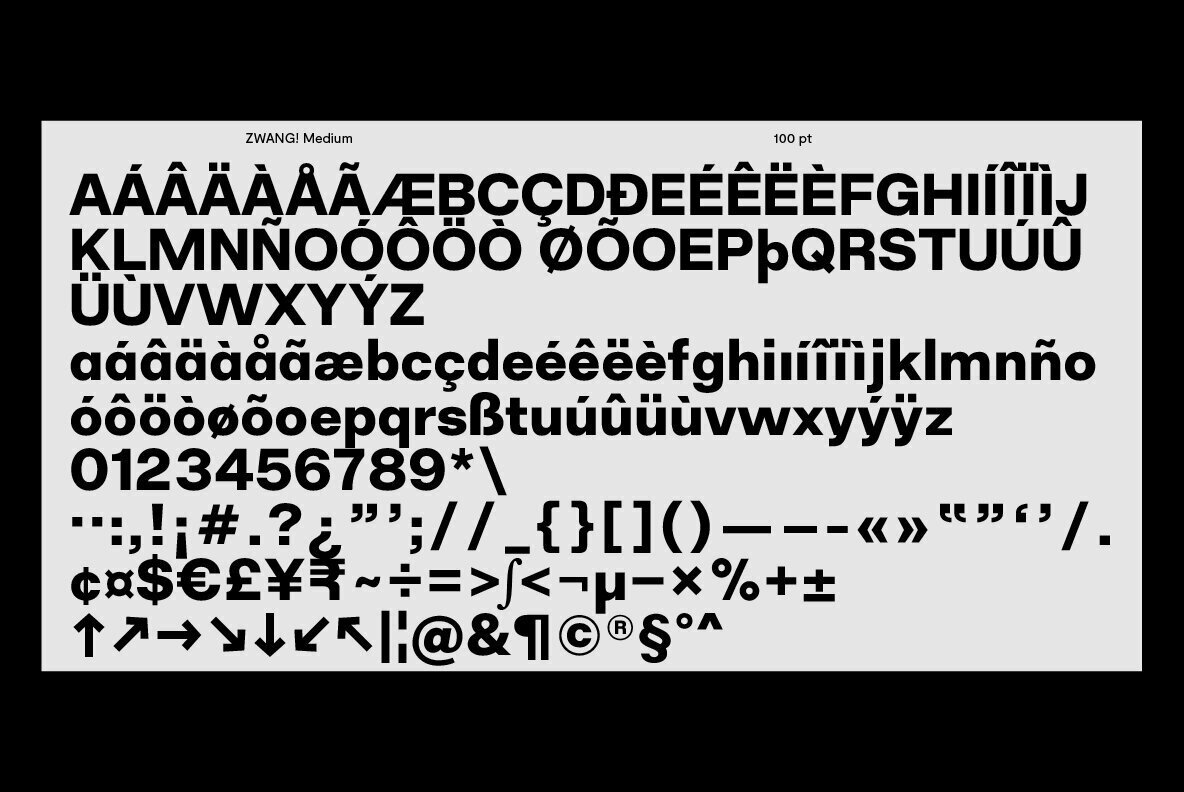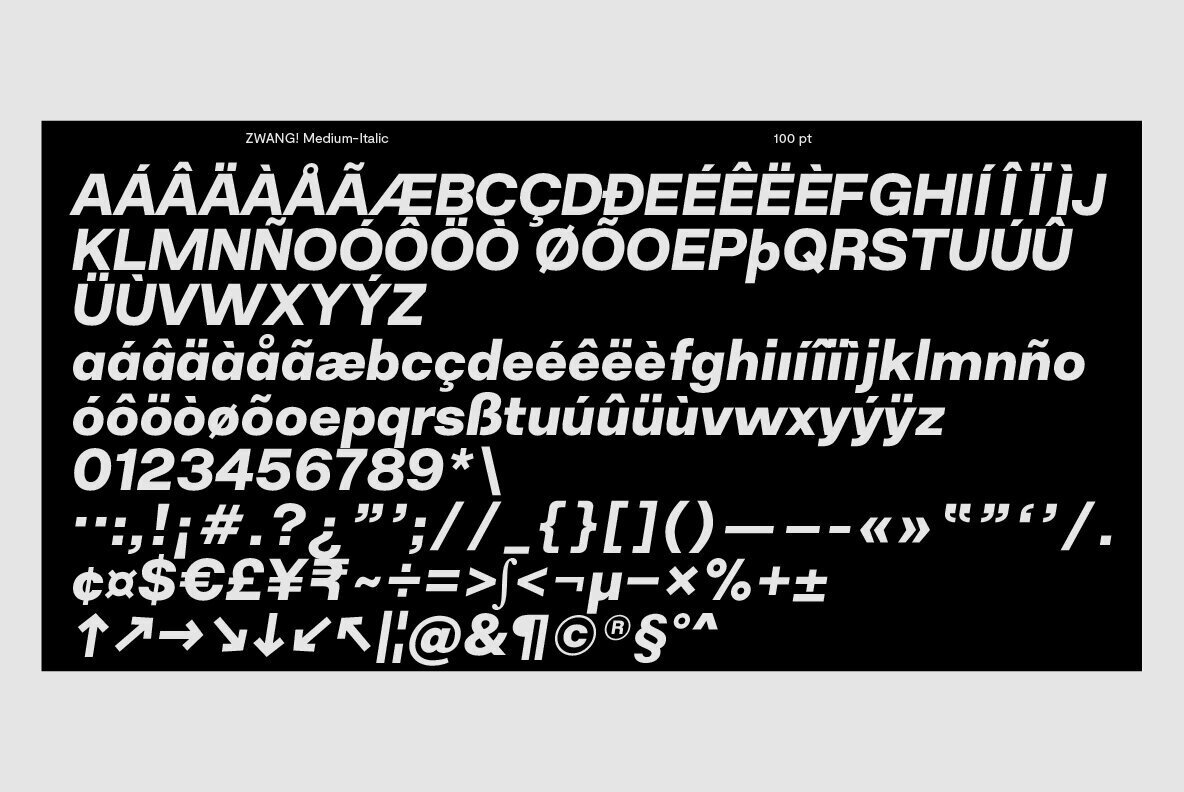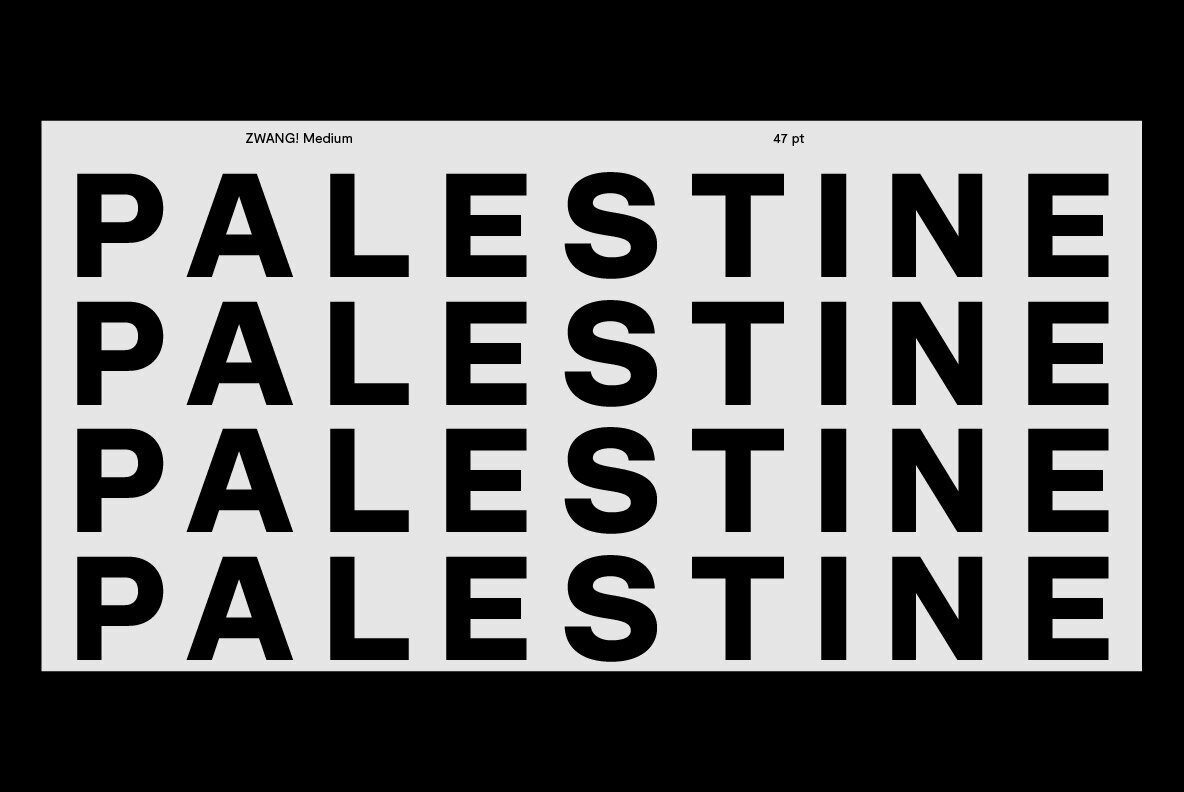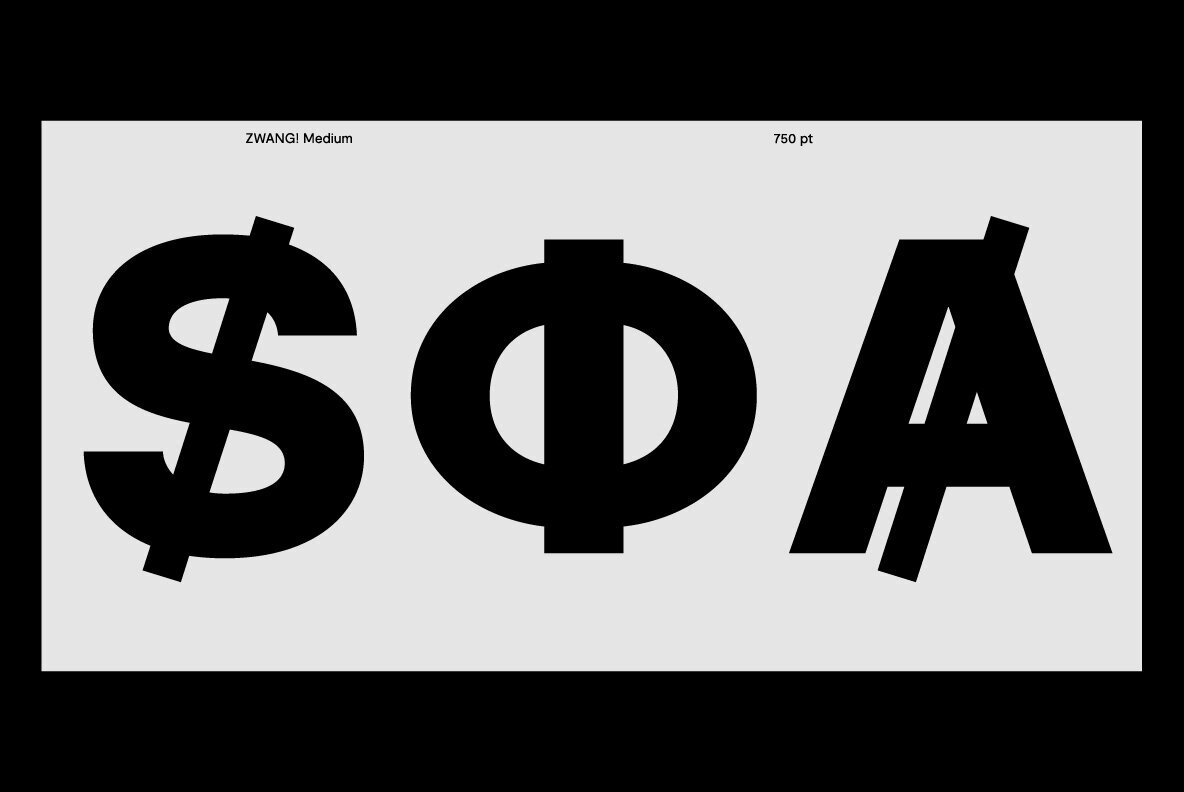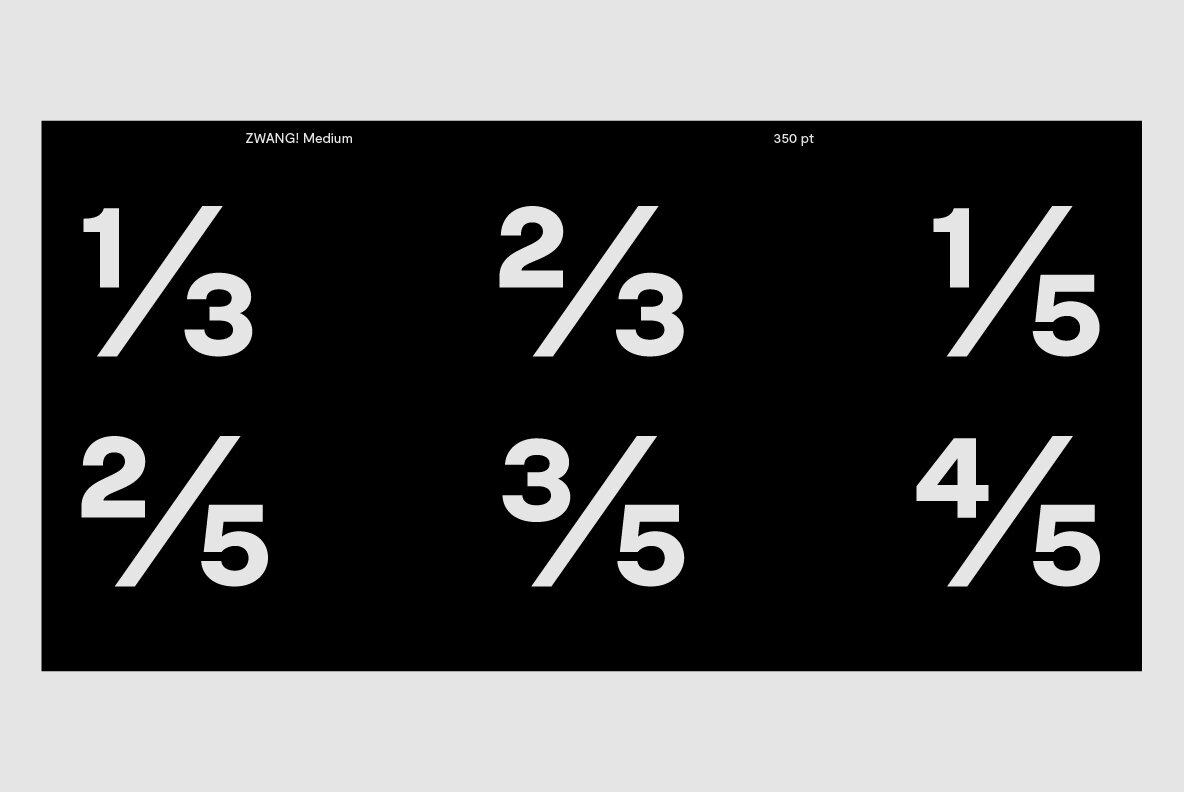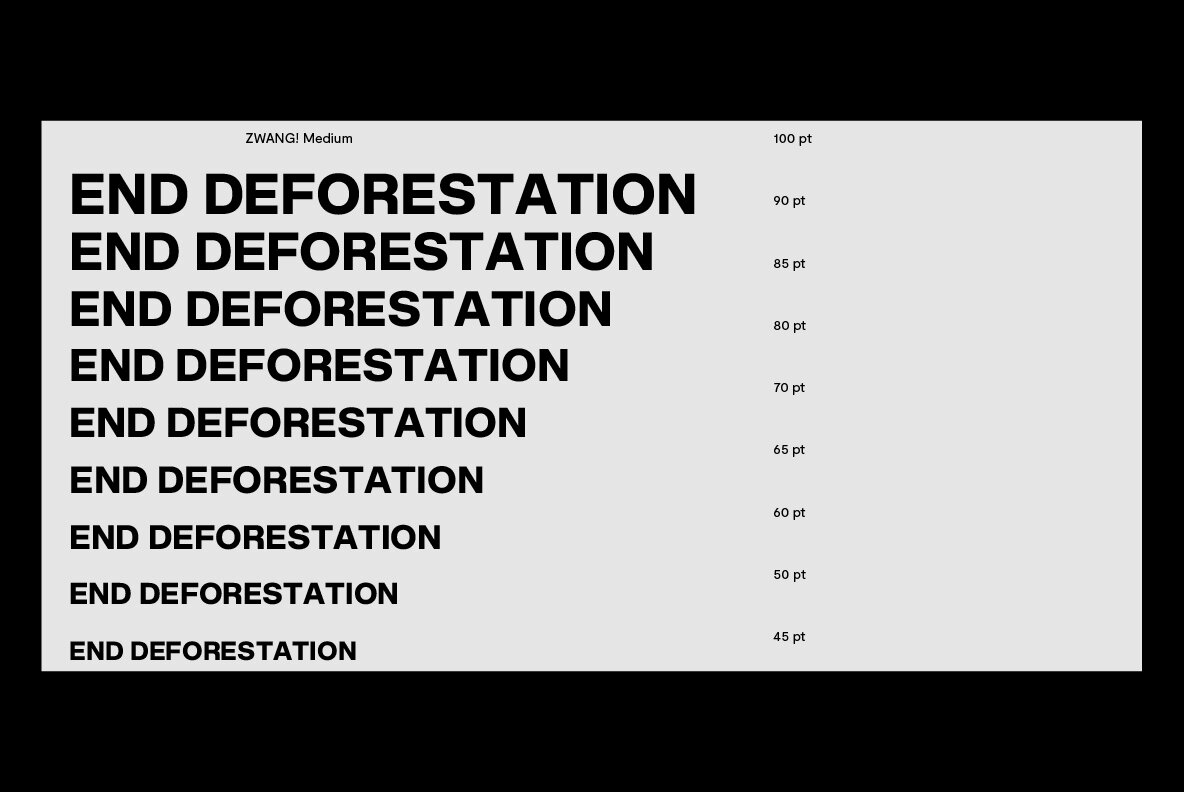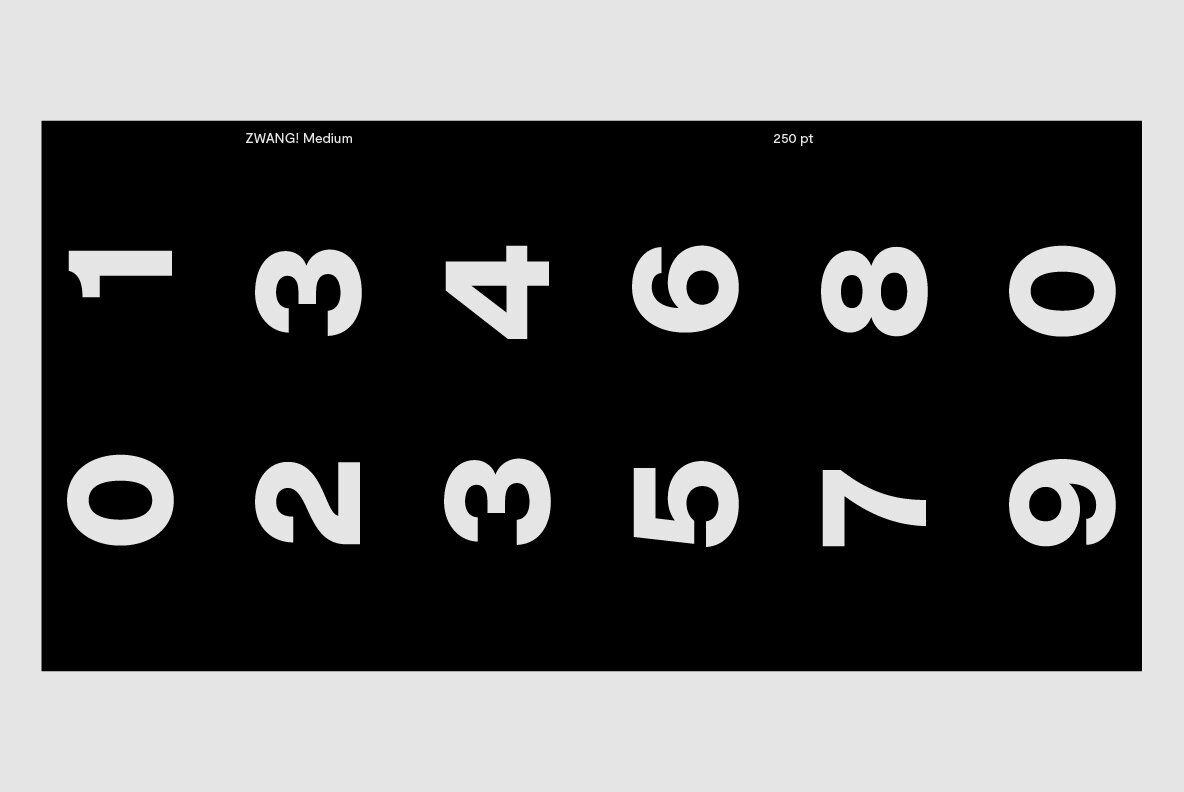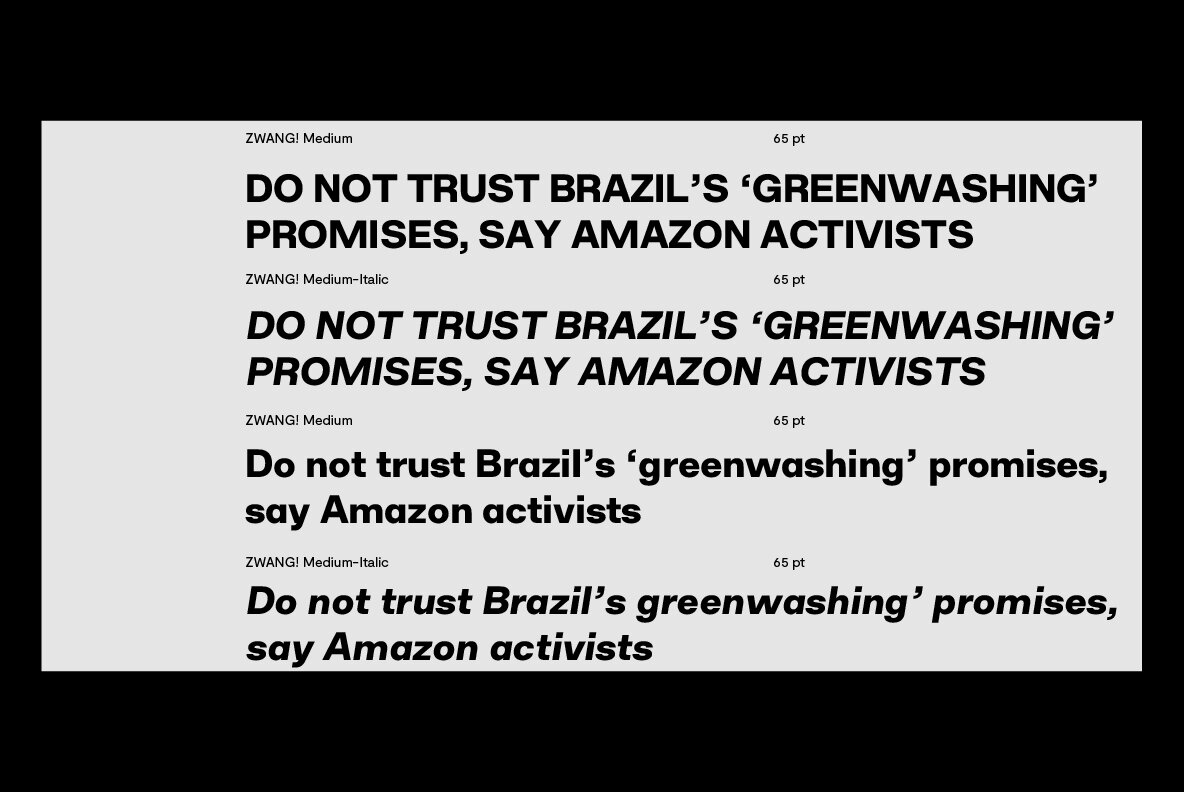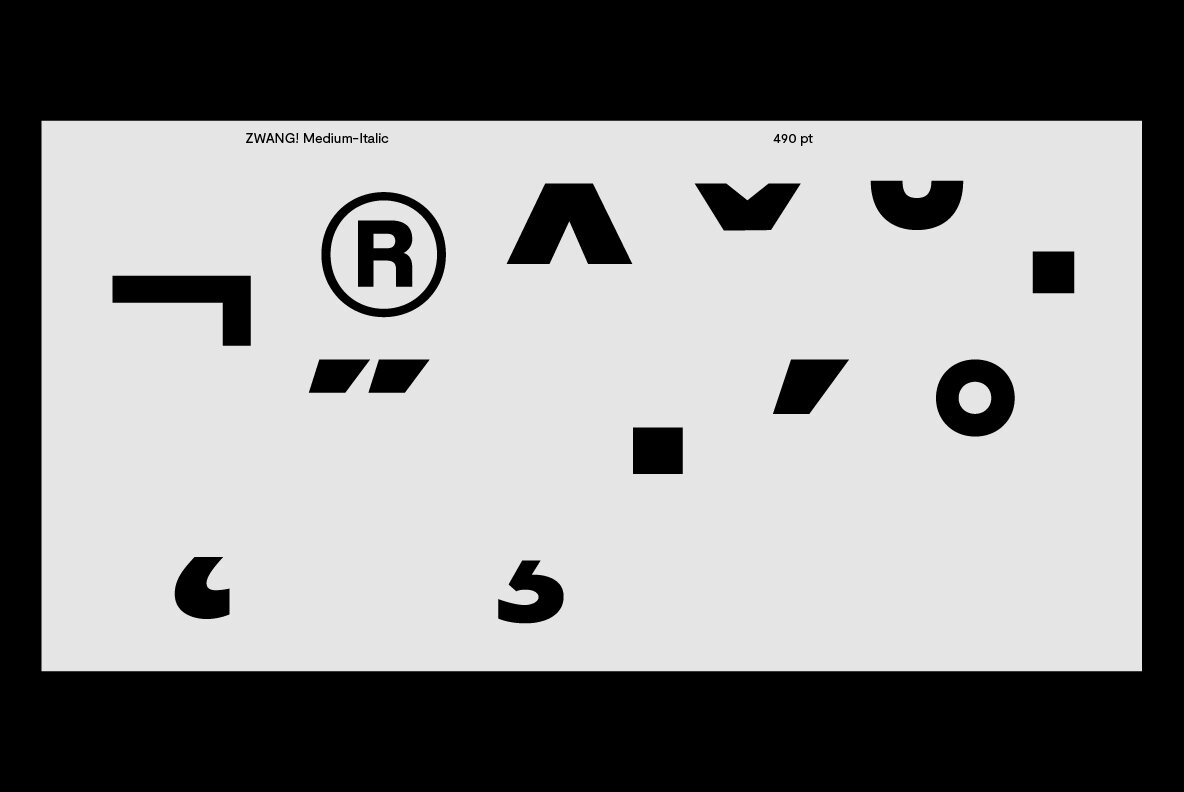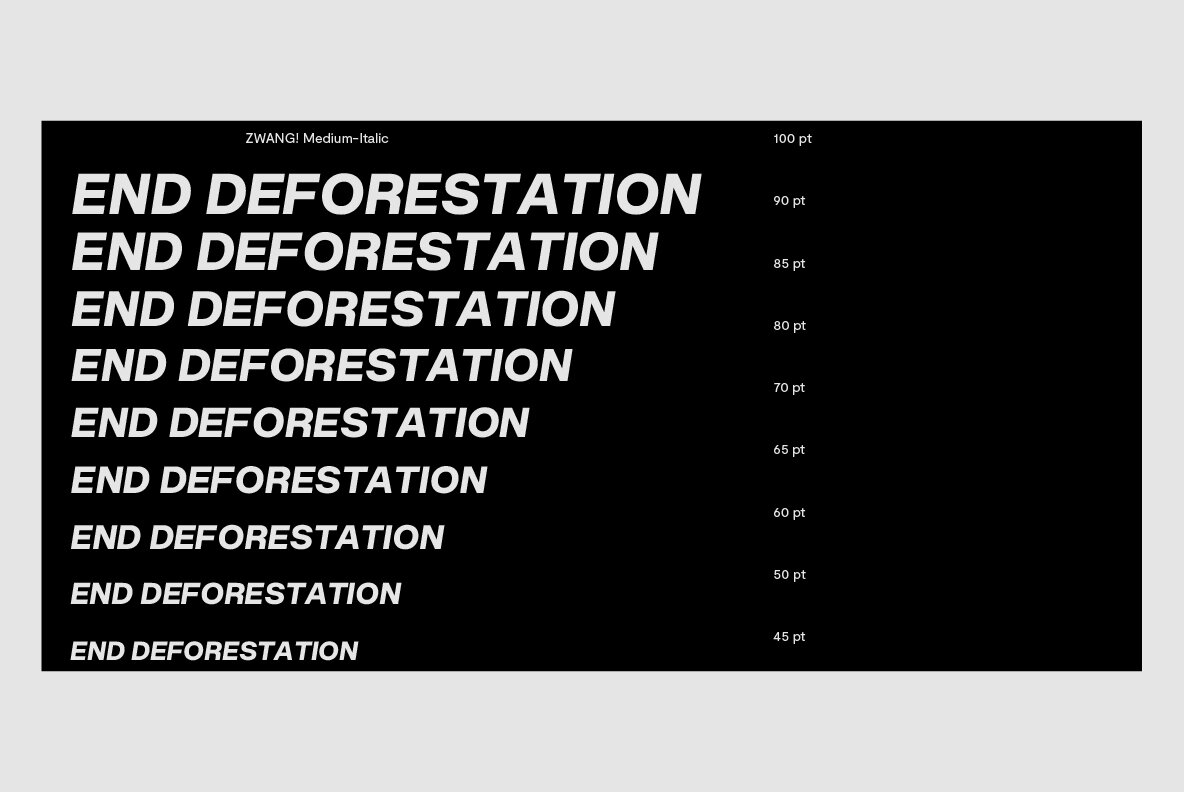
Zwang Font
Zwang presents a refined interpretation of the sans serif genre, characterized by its crisp lines and urban sophistication. Designed for the modern creative, it serves as a foundation for branding and design projects that seek clarity and impact. With its minimalist aesthetic, Zwang thrives in delivering readability across digital and print media.Zwang: Contemporary Sans Serif With Urban Edge